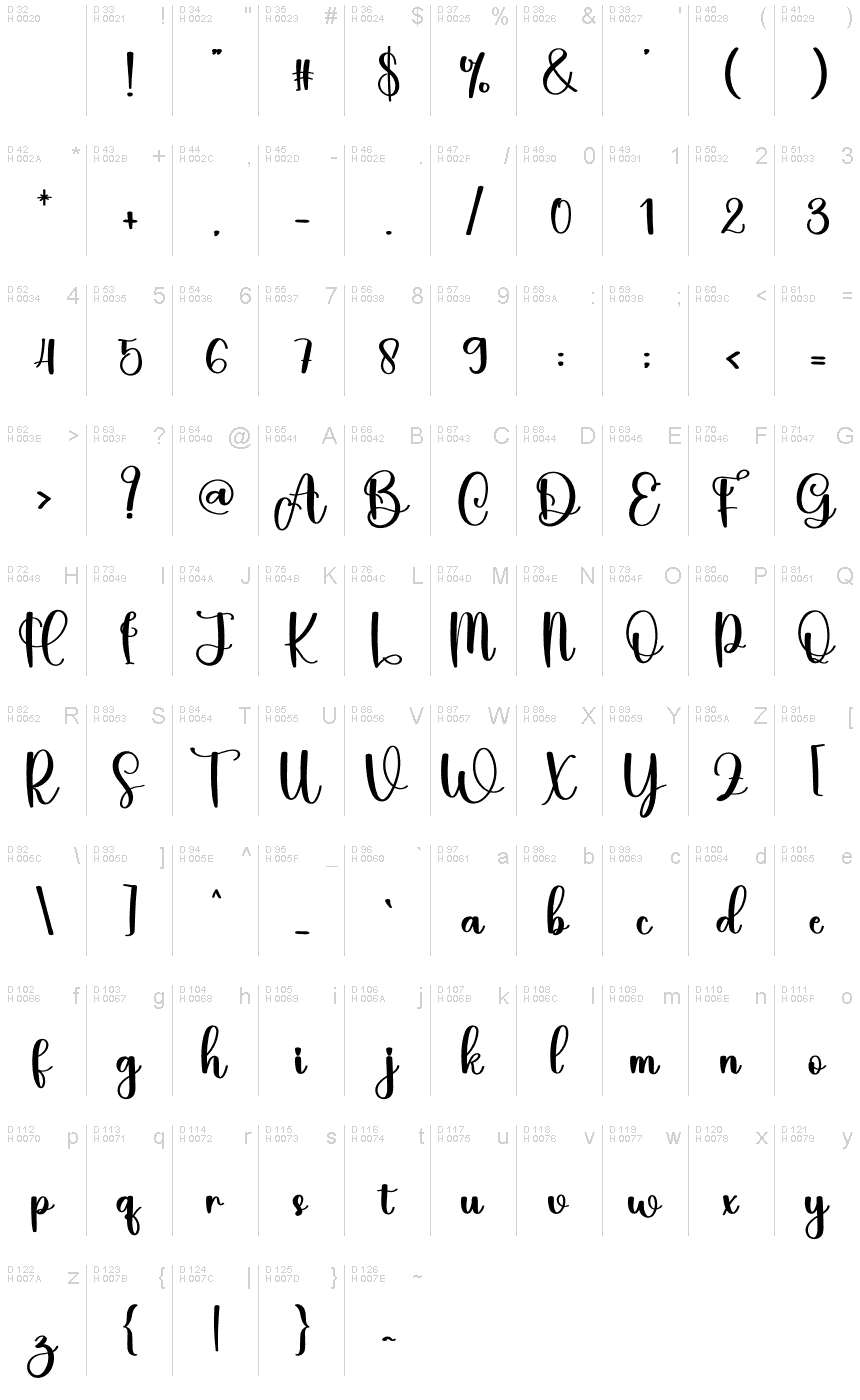
Happie
Happie, a mesmerizing calligraphy font by Inermedia Studio, exudes elegance and grace with its semi-light weight. Its flowing curves and delicate strokes make it perfect for wedding invitations, love letters, and feminine branding projects. This font captures attention effortlessly, making it suitable for blog headers, social media posts, and online advertisements. Whether you're designing a logo for a luxury brand or creating eye-catching packaging for beauty products, Happie adds a touch of sophistication to any project. Unleash your creativity with this enchanting typeface that enchants readers from the very first glance.